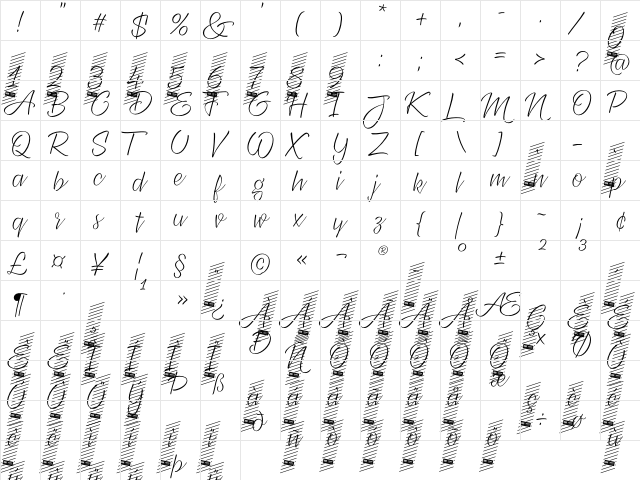
XXII CoolScript - DEMO Thin
Design Context for XXII CoolScript - DEMO Typeface
XXII CoolScript - DEMO brings a calligraphic fluidity to the page — its connecting strokes and expressive curves give it an unmistakably human quality. The delicate stroke weight brings airiness and refinement to layouts.